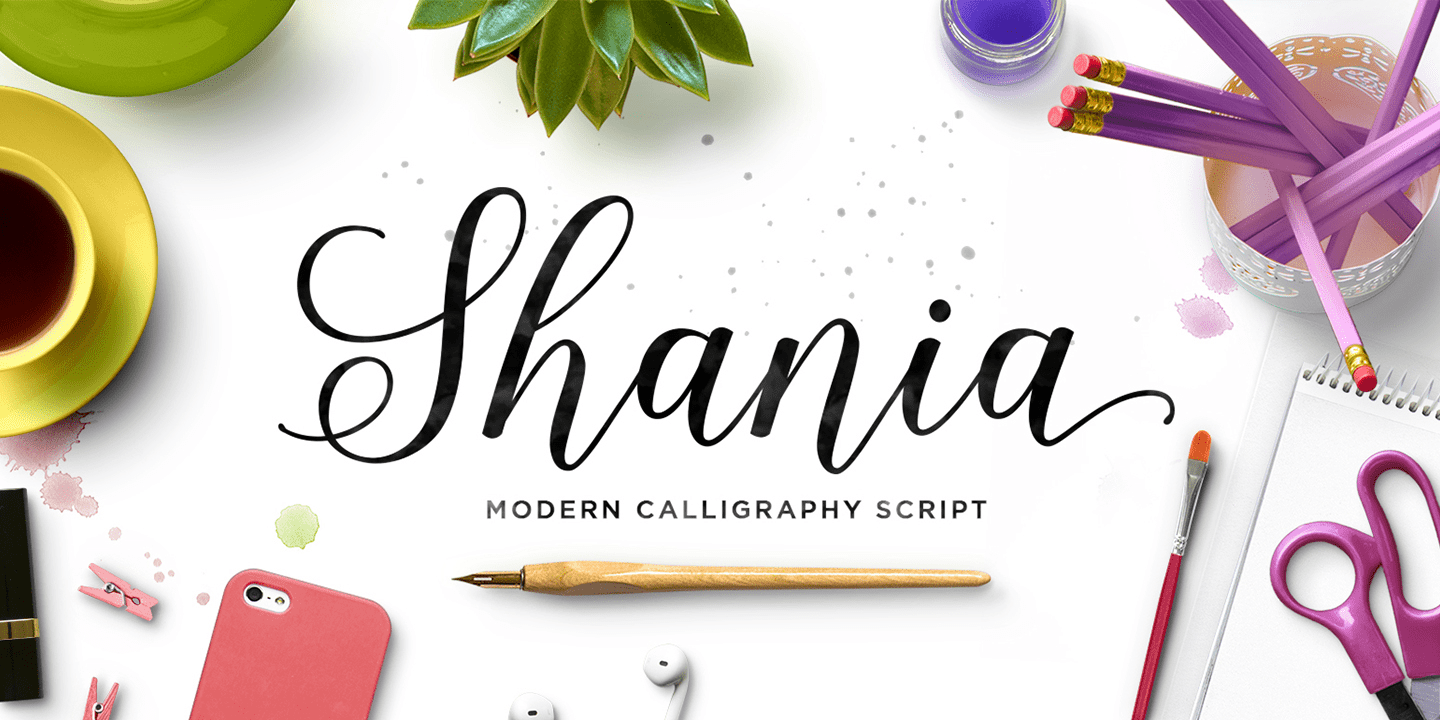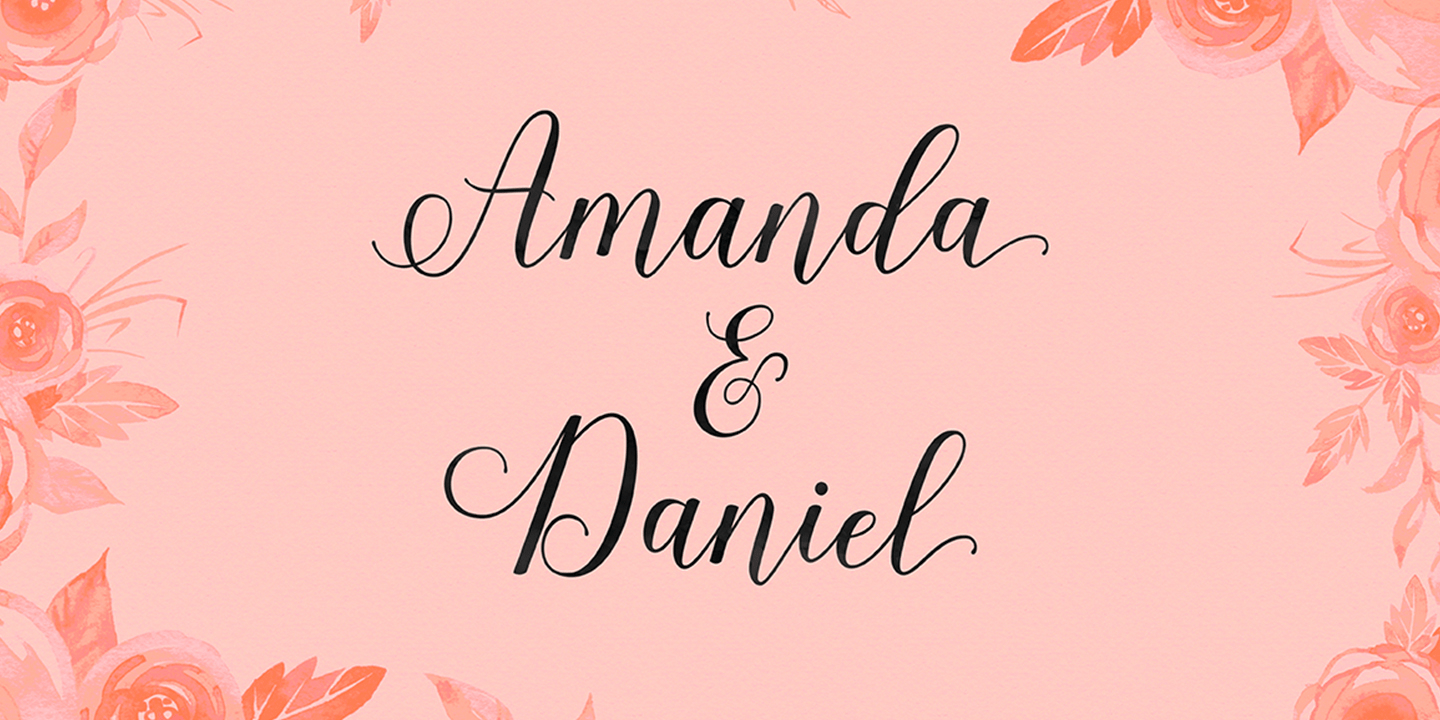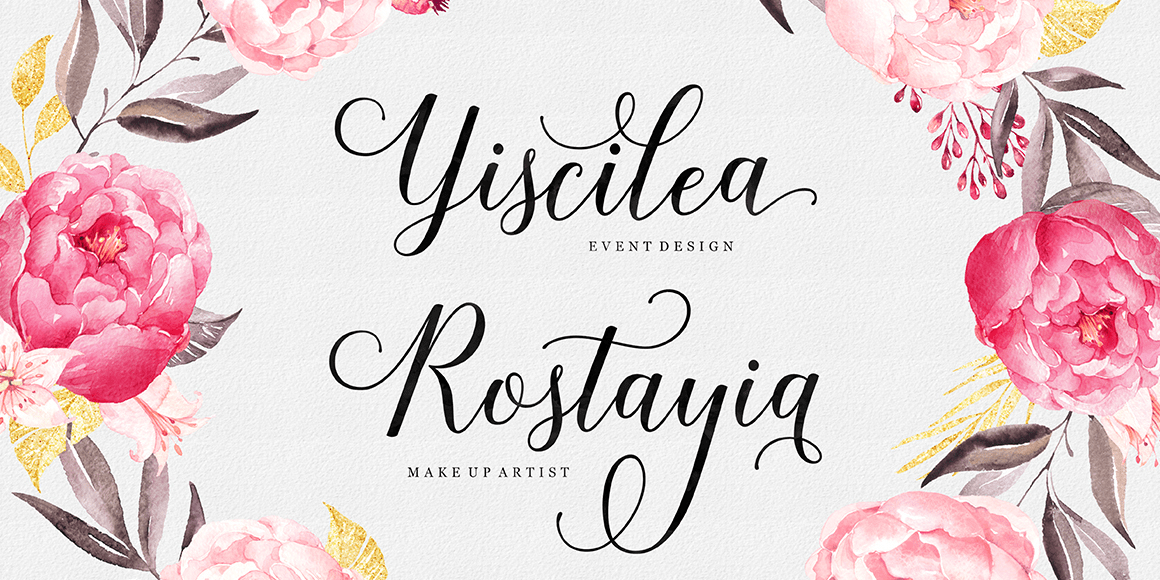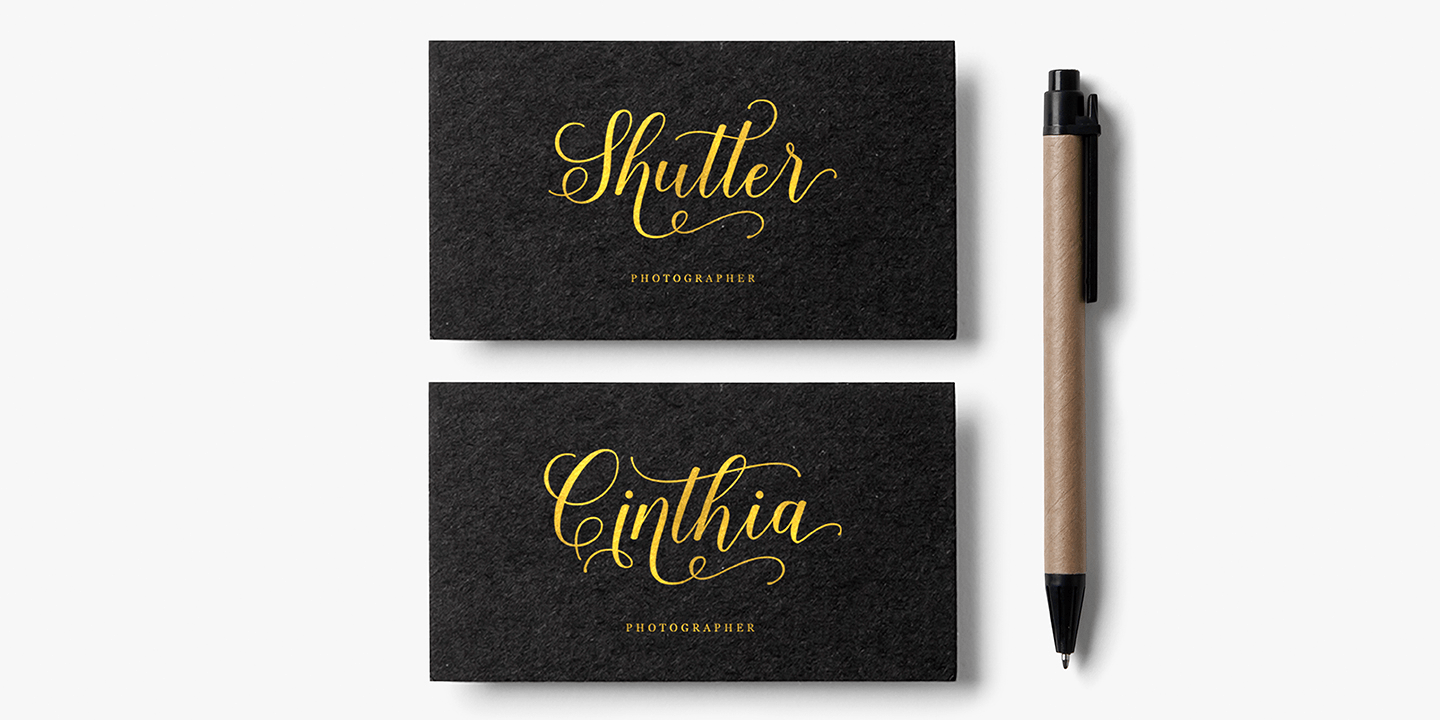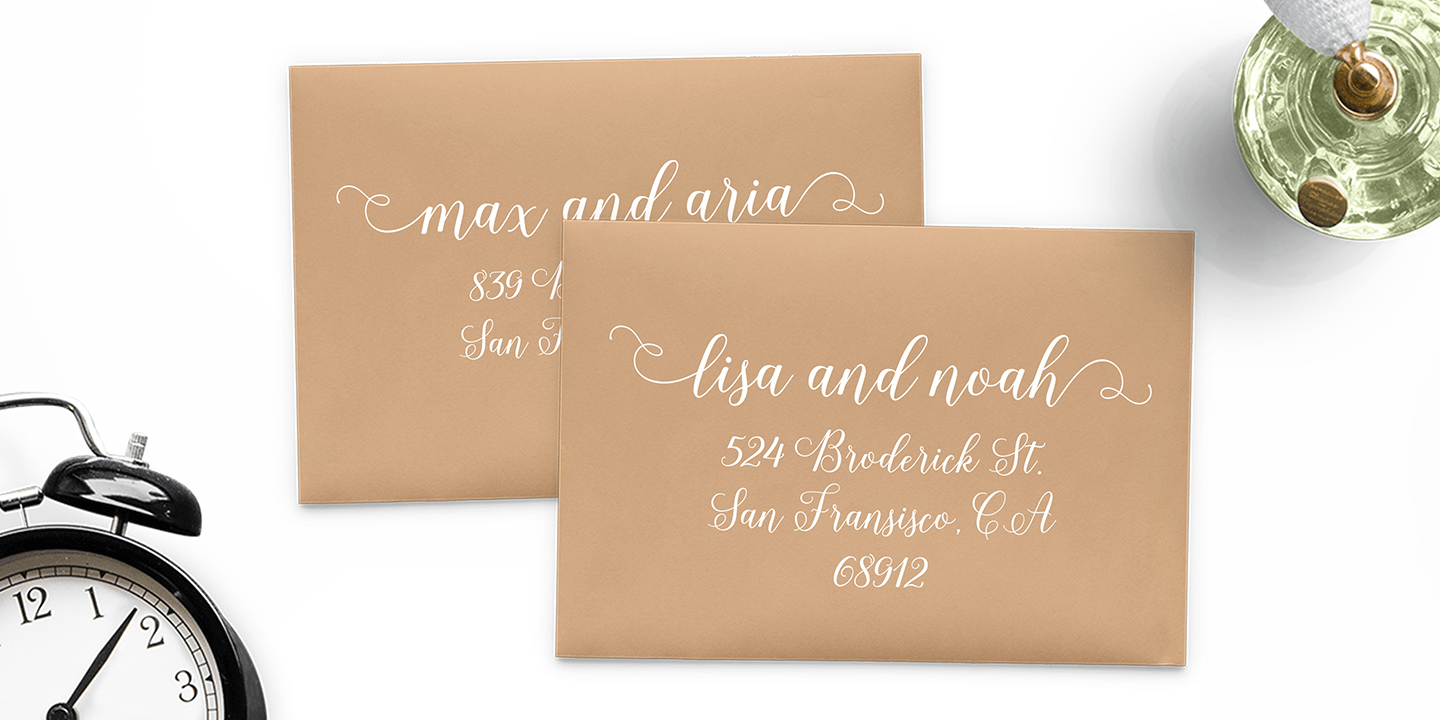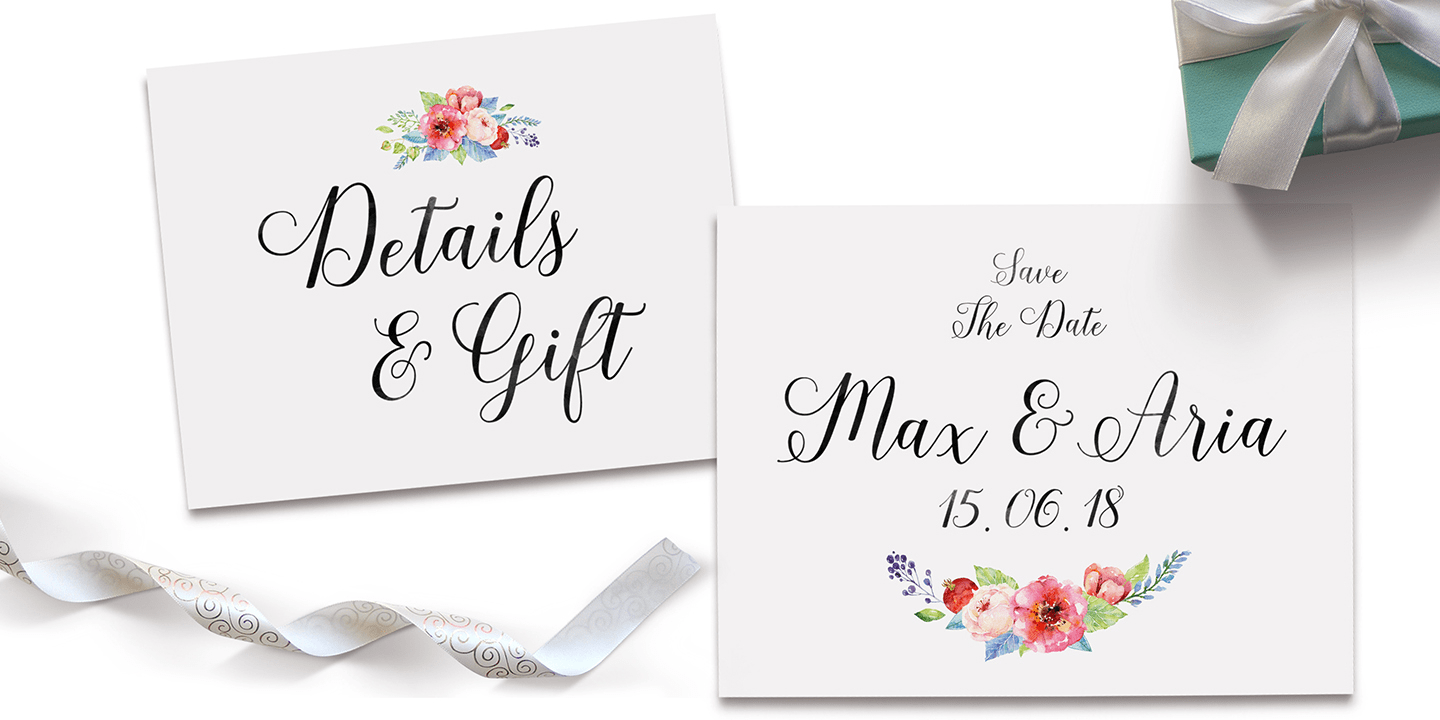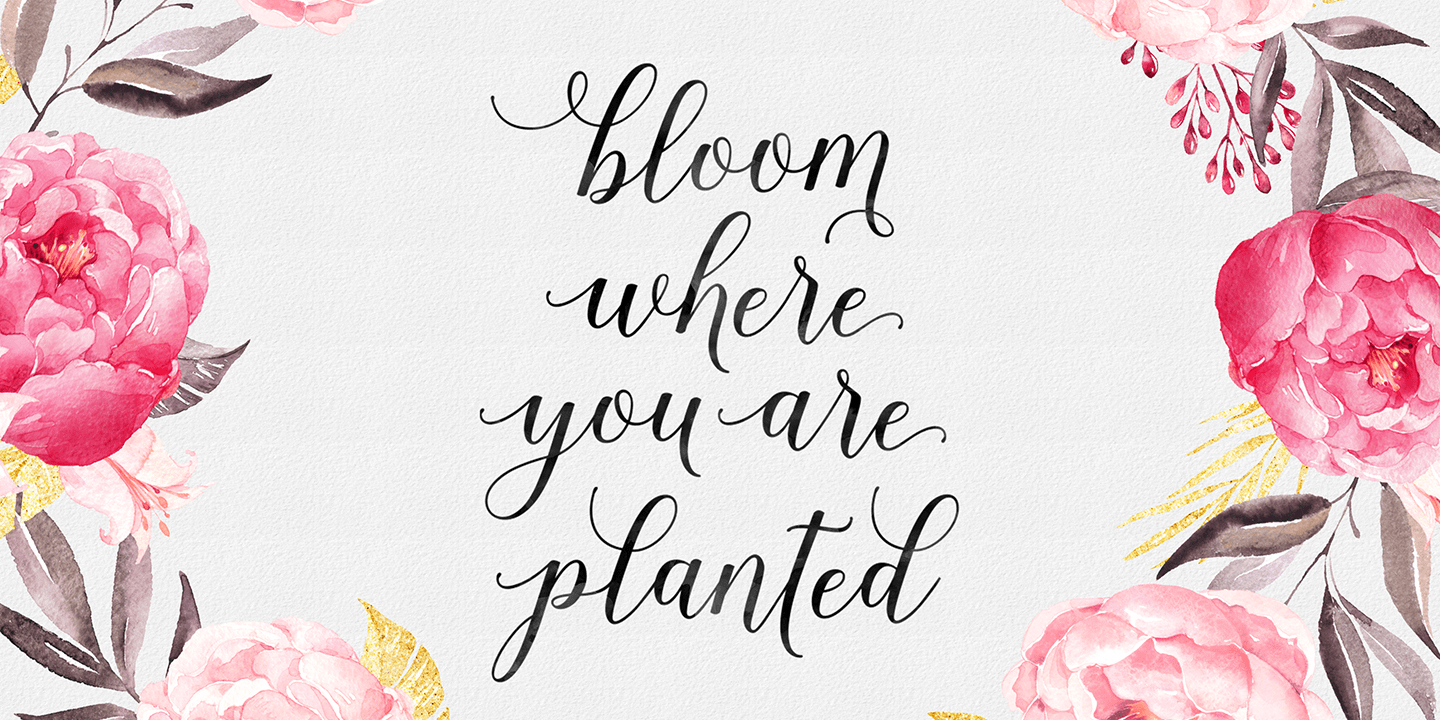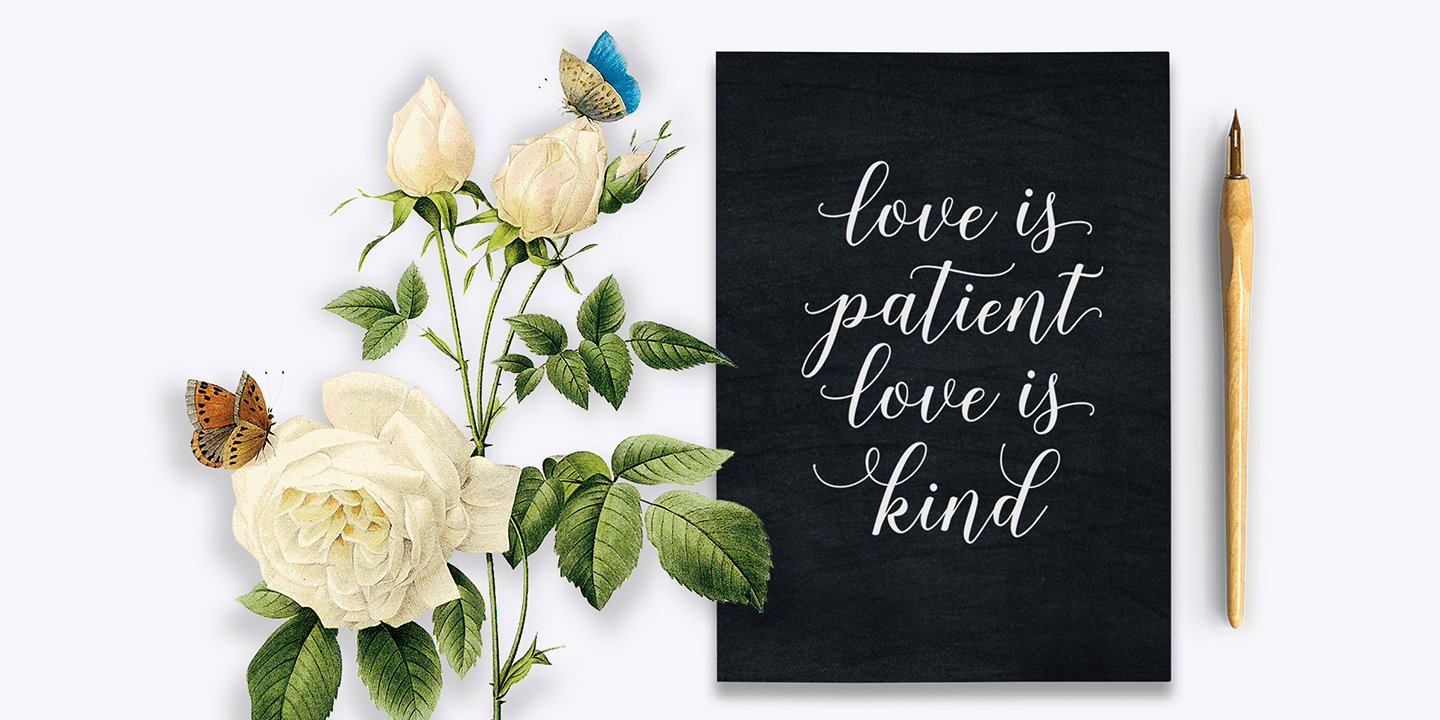
Shania Script
Shania Script is a modern calligraphy typeface with a free-flowing and moving baseline. It has a casual, yet elegant touch. It can be used for various purposes such as logos, wedding invitations, headings, t-shirts, letterheads, signage, labels, news, posters, badges etc.
Shania Script features 370+ glyphs and 136 alternate characters, including initial and terminal letters, alternates, ligatures, and multiple language support.